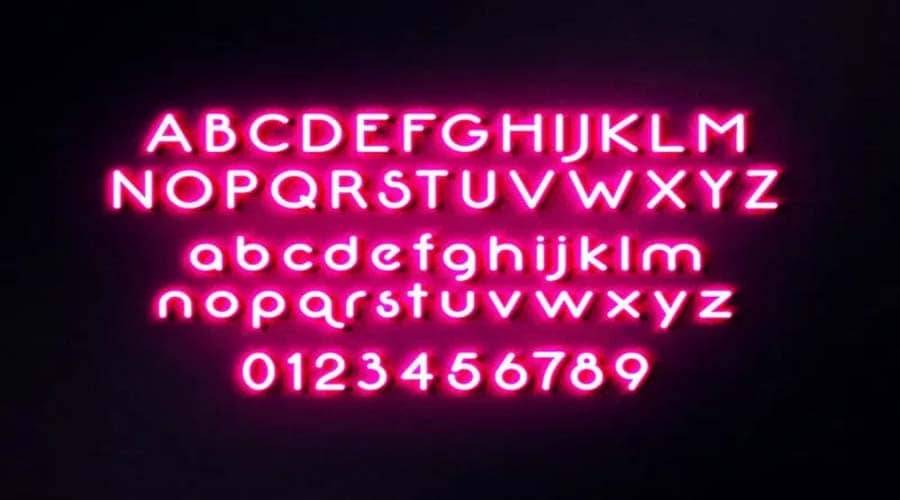
Neon 80s Font
The Neon 80s Font has arrived! The font is a Sans Serif font. Essqué Productions designed and released the font on March 28, 2021.
Neon 80s Font is a contemporary and retro typeface based on a real neon light sign. It has limited letterforms with the polished circular shape and, like real neon tubes, uses sections with open start and endpoints. It appears that the font is available in both TrueType and OpenType file formats. This font is supported by Microsoft Windows, Mac OS X, Firefox, Cricut, Silhouette, and other computer chips.
This font is ideal for creating your shimmering light effects or for designing real-world neon signs. The Neon 80s Font was intended to be easy to read in long-form text with and without grammatical marks. The font can instantly give a shiny touch to any project. The beautiful font is utterly applicable from personal to professional use.